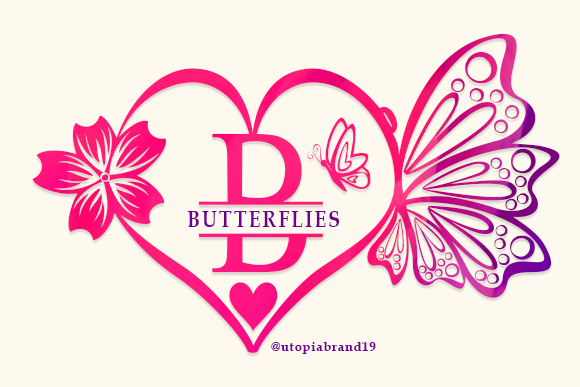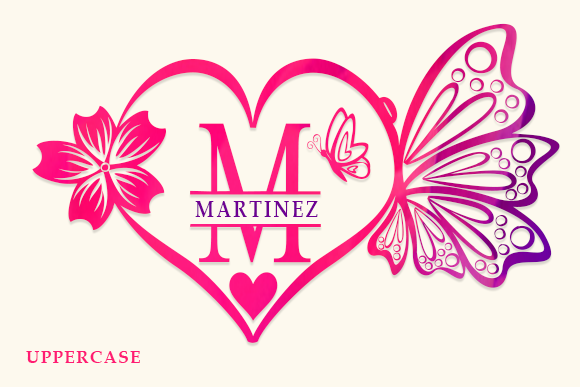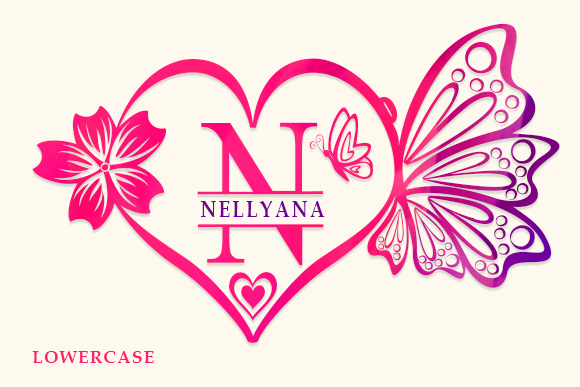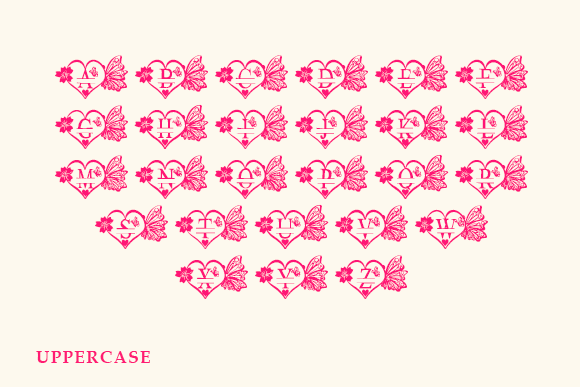
Butterflies Monogram Font: Elegant Wedding Font & Cricut Design Resource
About the Butterflies Monogram Font
Introducing the Butterflies Monogram Font, a beautifully crafted typeface designed to elevate your creative projects. Butterflies Monogram is an elegant decorative font, featuring lovely ornaments. Fall in love with its authentic feel and use it to create gorgeous wedding invitations, beautiful stationary art, eye-catching social media posts, and cute greeting cards.
Butterflies Monogram excels in applications requiring a touch of refined elegance, such as wedding stationery, logos for boutique businesses, or short-form social media content. Its decorative nature makes it ideal for headings, short quotes, and impactful branding elements. However, its ornate style is less suitable for body text or UI elements where readability is paramount; the intricate details could hinder legibility in large blocks of text.
Pair it with a clean sans-serif font like Lato or Open Sans for a balanced contrast, allowing Butterflies Monogram to shine as a headline or accent. For a more traditional feel, consider pairing it with a classic serif like Garamond or Playfair Display. Avoid pairing it with other highly decorative fonts, as this could create visual clutter.
The font’s overall personality is sophisticated and romantic, lending itself well to brands focused on luxury, beauty, or handcrafted goods. Its delicate ornamentation conveys a sense of artistry and attention to detail.